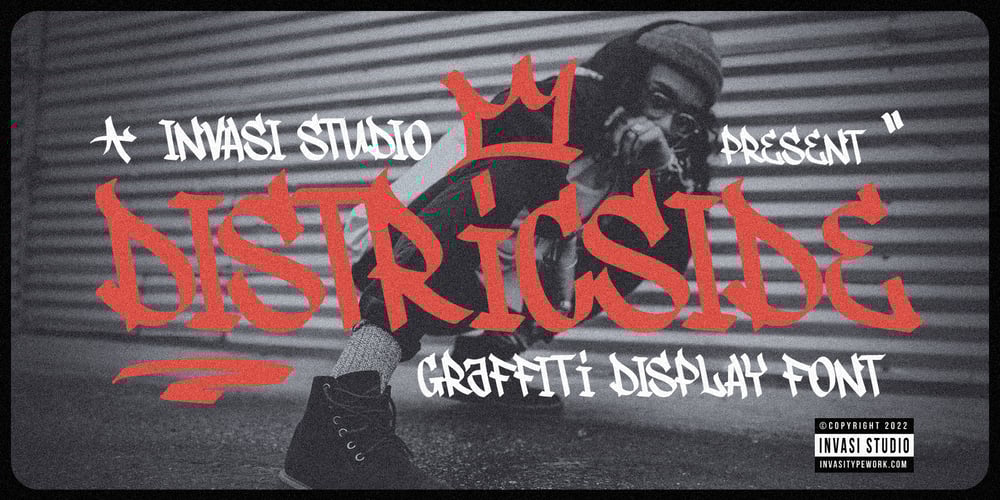
Districtside Font Family was designed by Gha Arizal and published by Invasi Studio. Districtside contains 1 styles and family package options. Districtside is from Tagging Graffiti with urban lifestyle inspiration. Featuring an extra swash font, you can make your project more attractive. This style is bolder, easier to read, and is perfect for titles, logos, product packaging, branding projects, magazines, social media, and even just to express words above the background.